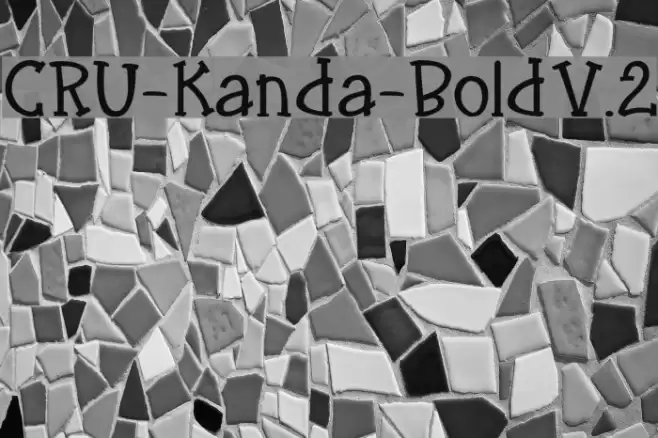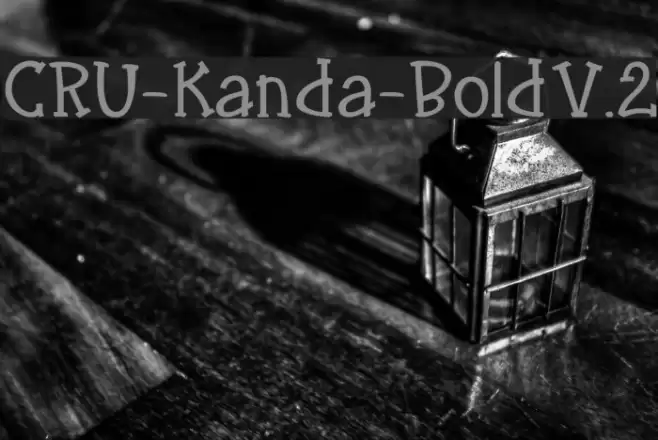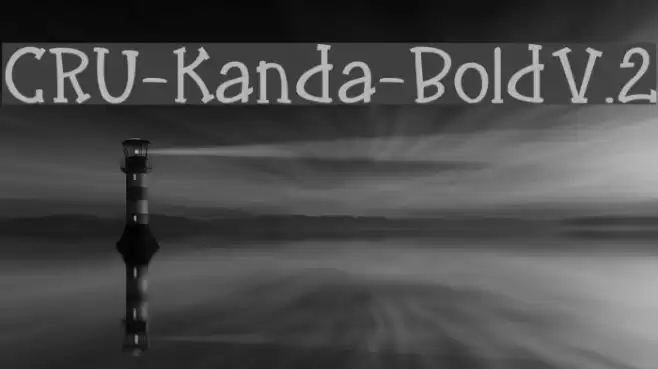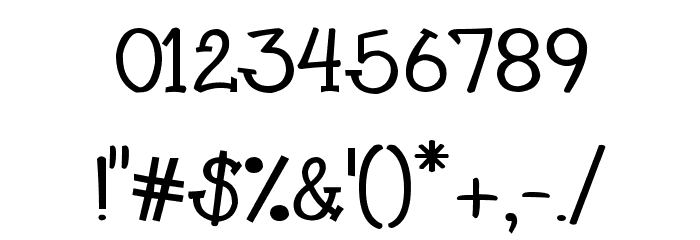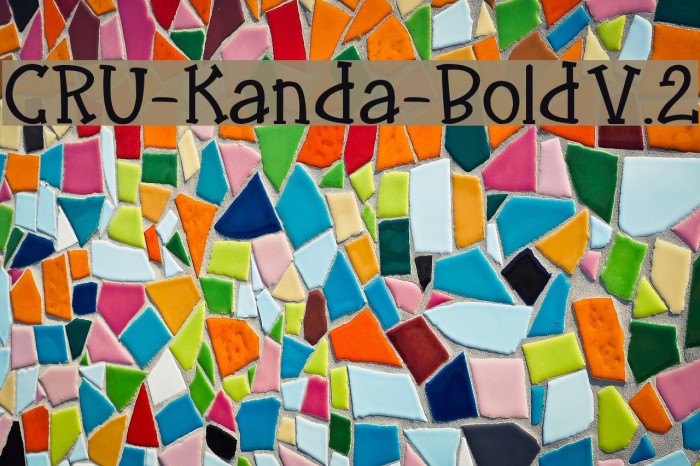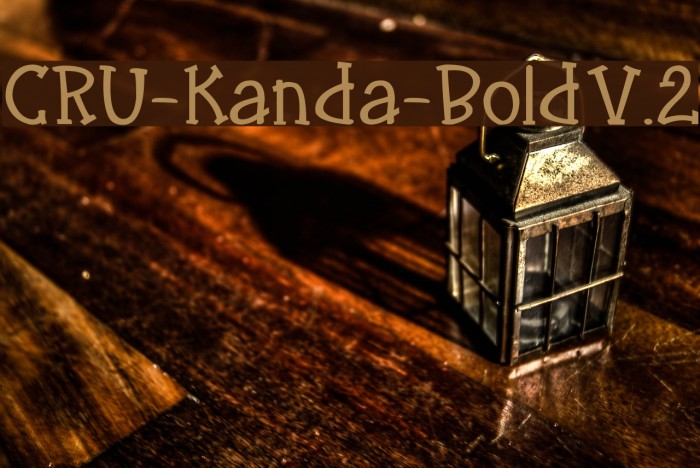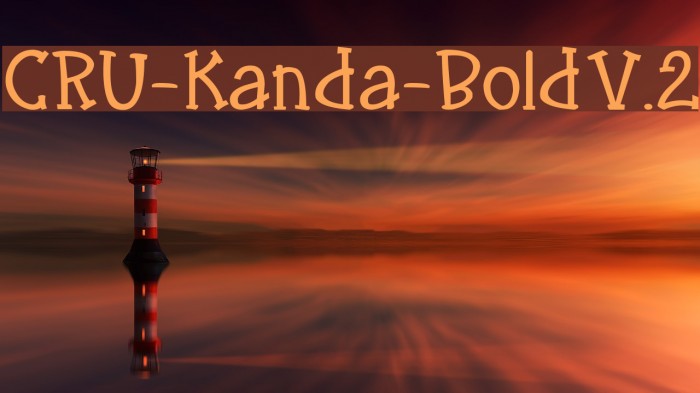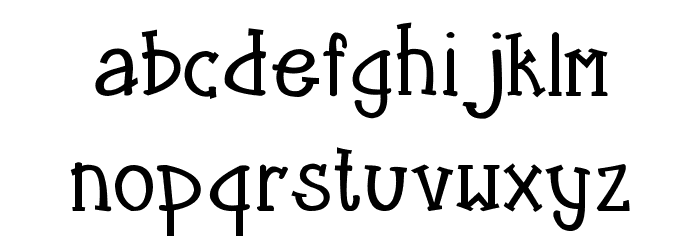
CRU-Kanda-Bold V.2 Font
CRU-Kanda-Bold V.2 Description
This font features a playful and whimsical design with a distinct hand-drawn appearance. The characters are bold and slightly irregular, giving them a unique charm. The uppercase letters have a quirky, almost cartoonish style, while the lowercase letters maintain a consistent flow. The numbers and special characters follow the same playful aesthetic, making the font suitable for creative and informal projects. The overall look is both approachable and distinctive, with a strong personality that stands out.
A playful, hand-drawn font with bold, quirky characters from Uncategorized fonts.
- Proposed Projects: Ideal for children's books, playful branding, greeting cards, and creative posters.
- Overall Style: Whimsical, Playful